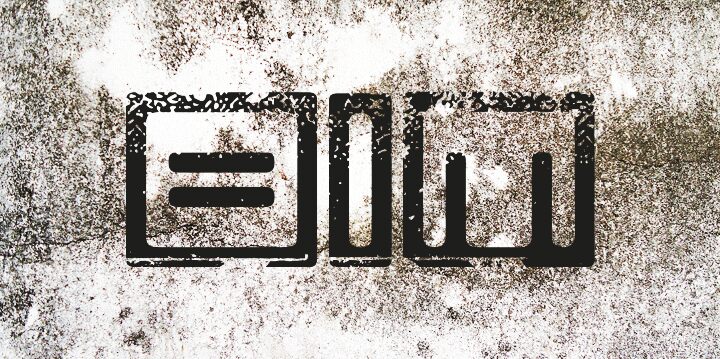
Bim Eroded by Carlos Matteoli is a free eroded techno display font with broad low-slung letters and the weight of industrial signage. Rounded outer corners and squared inner spaces give the forms a compact machine-cut profile. Dense chips and scratches cover every stroke and produce a convincingly battered surface.
A poster for an arcade, electronic music night, or motorsport event can turn its oversized shapes into the main visual hook. The same worn machinery look suits game graphics, album covers, and streetwear labels. On packaging, the lettering can become a stamped metal badge or damaged console panel rather than ordinary product text.